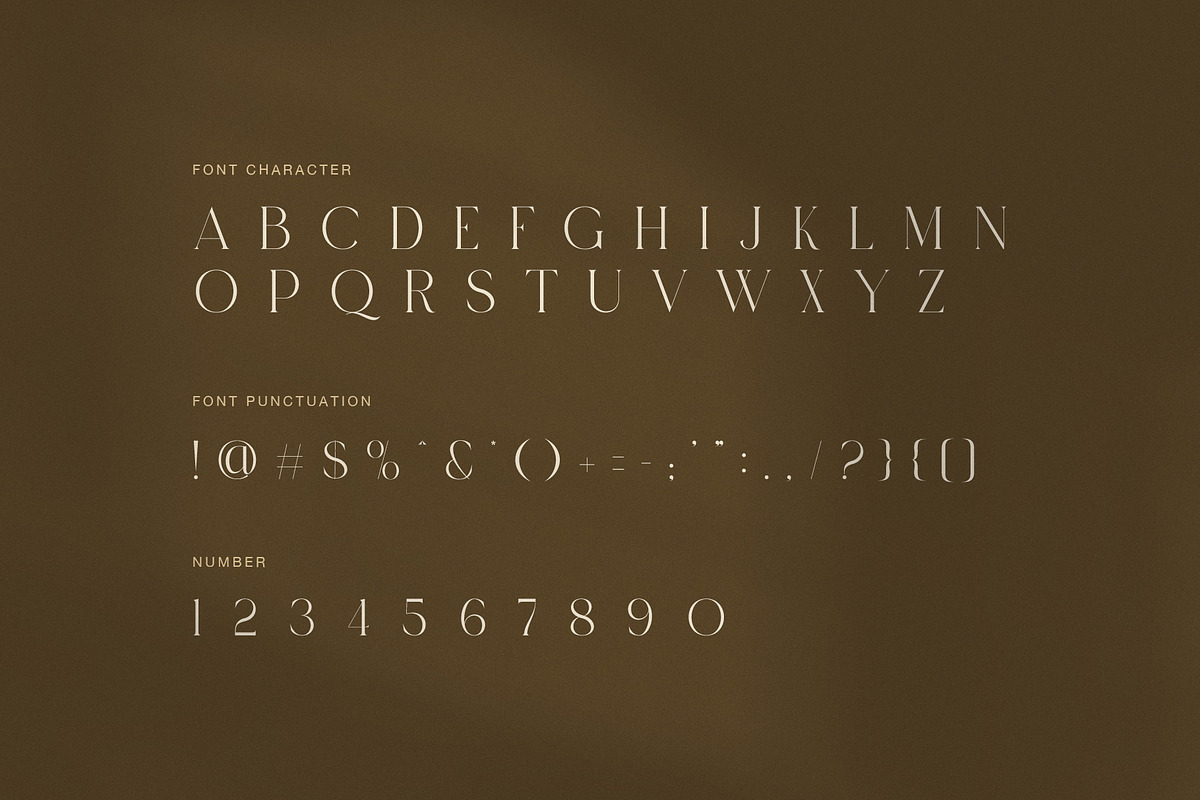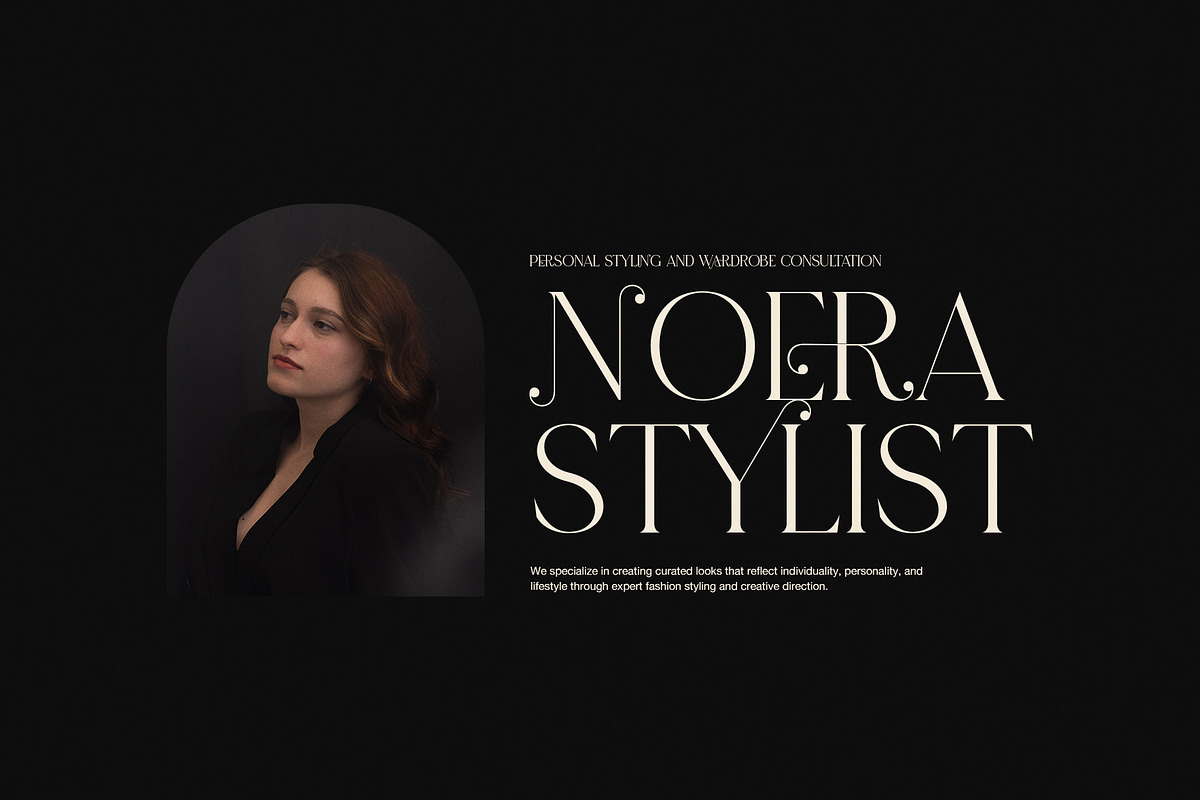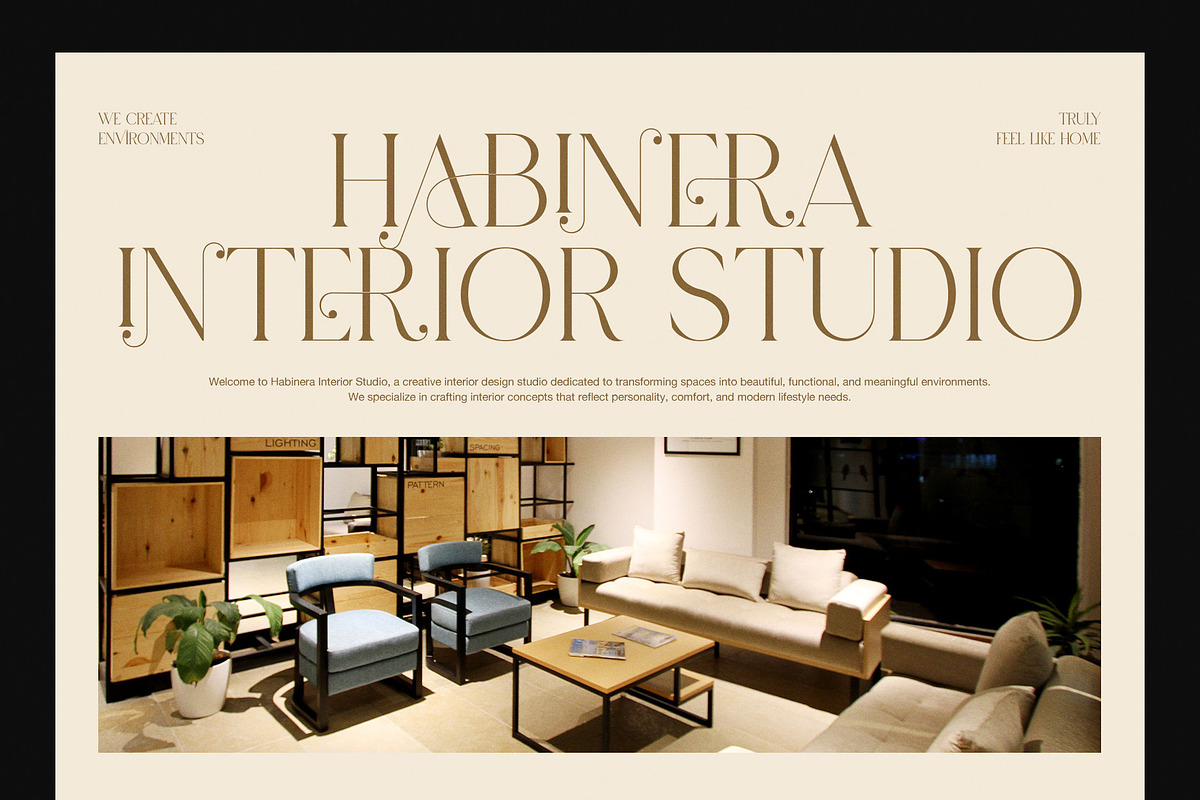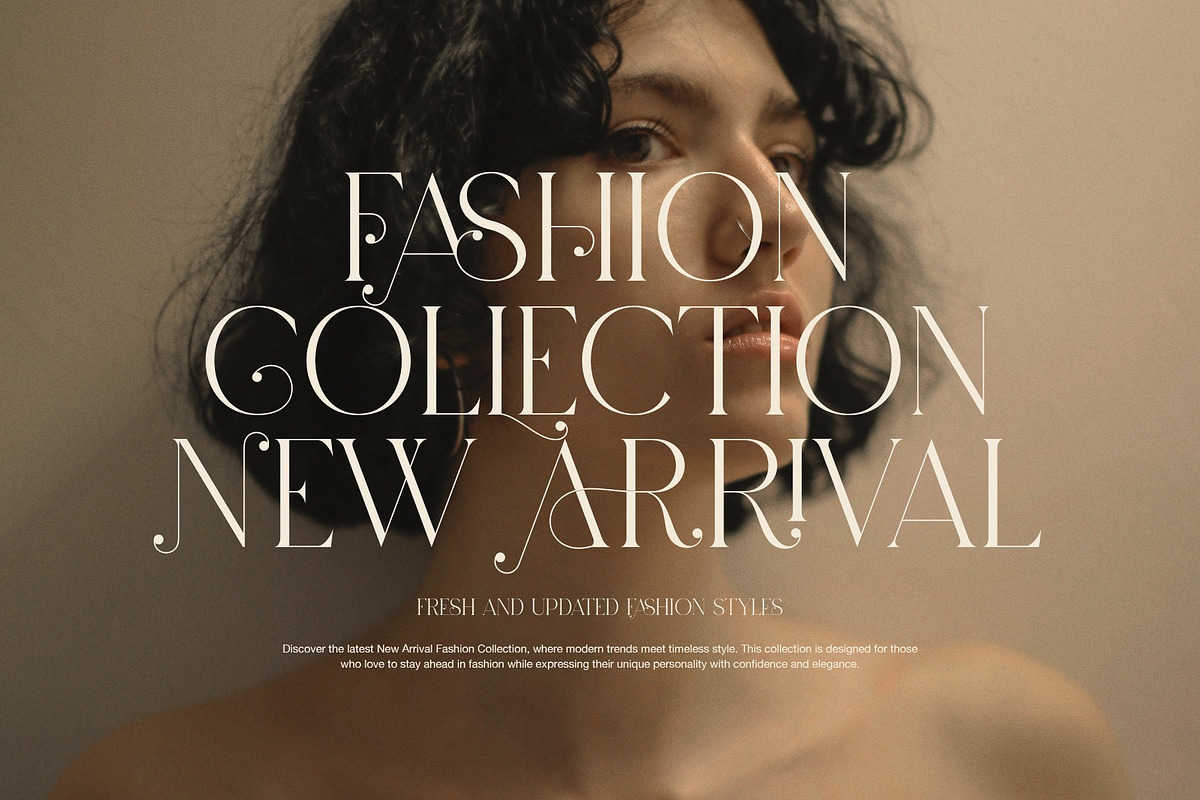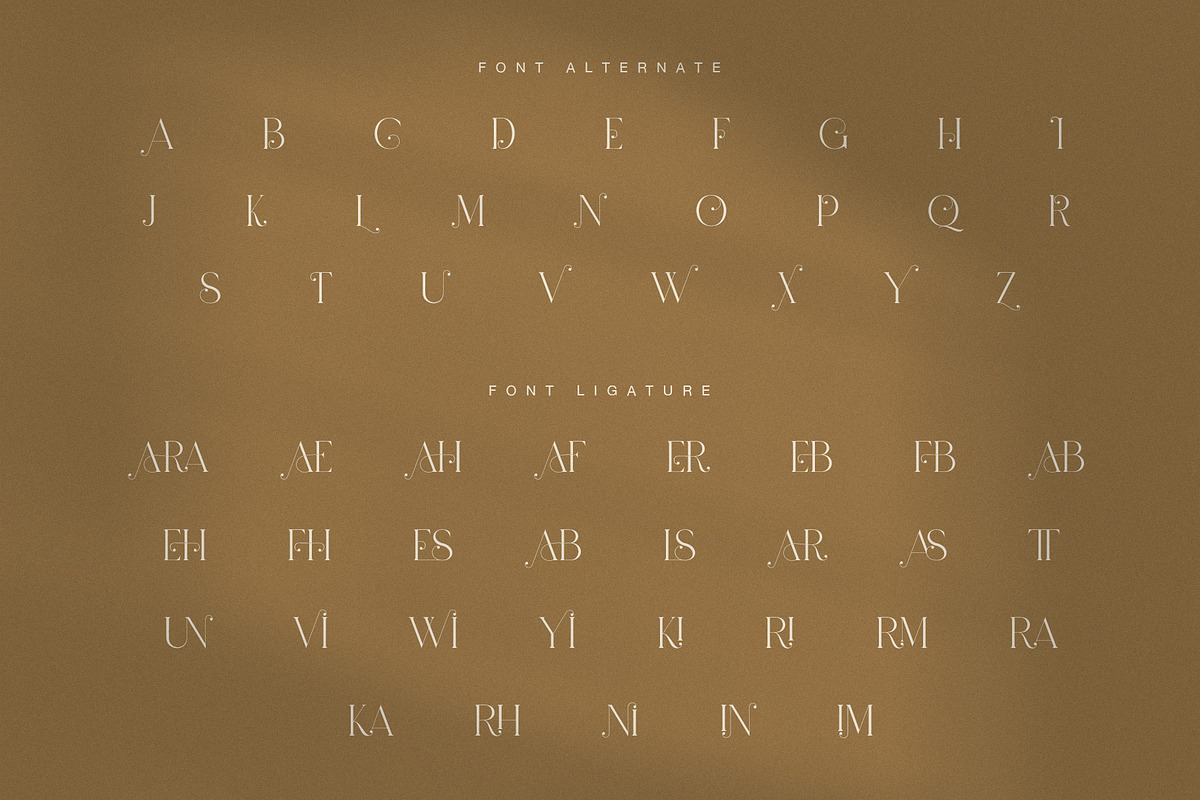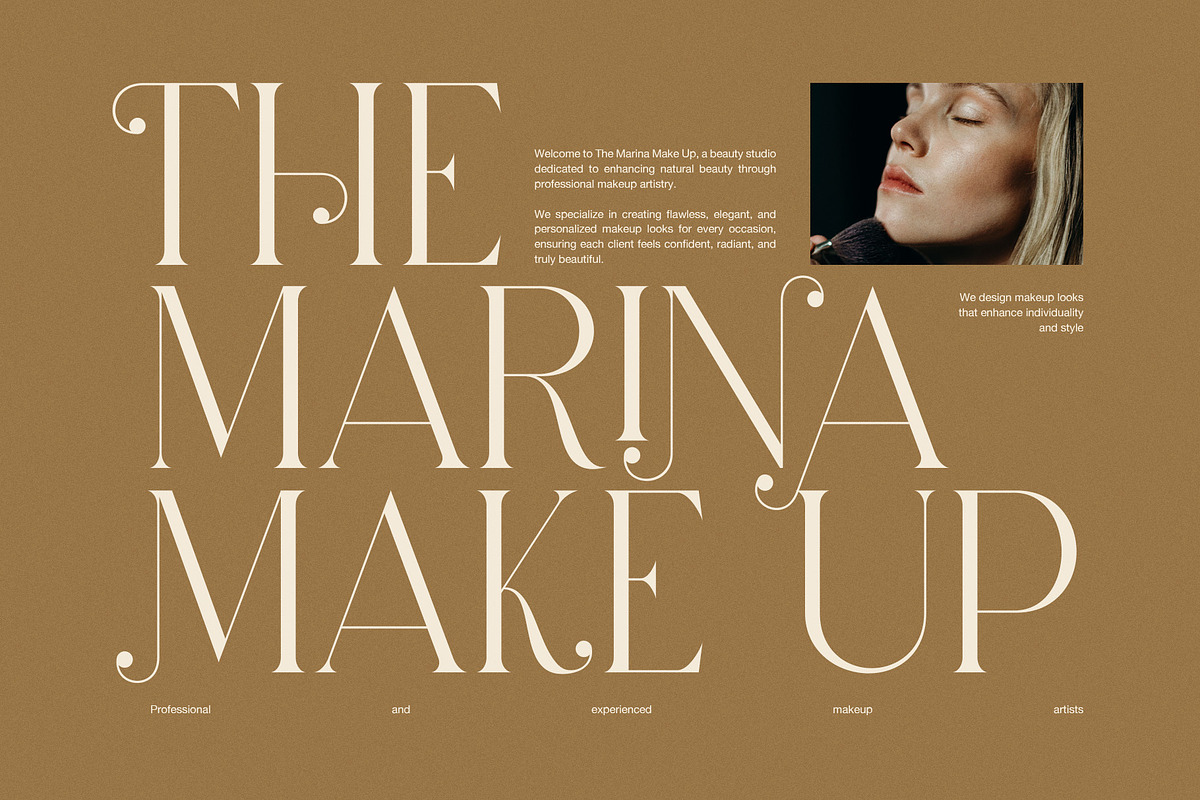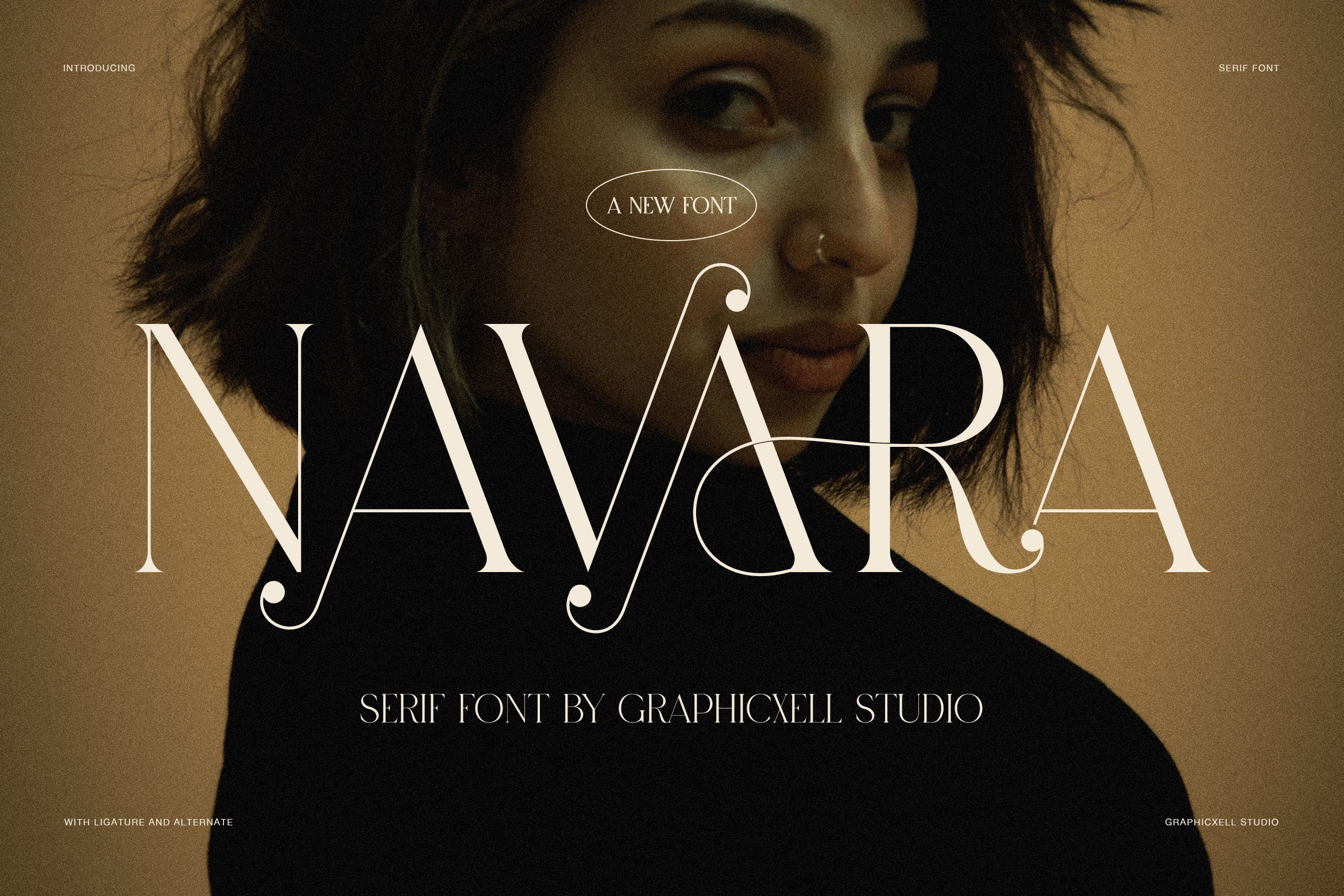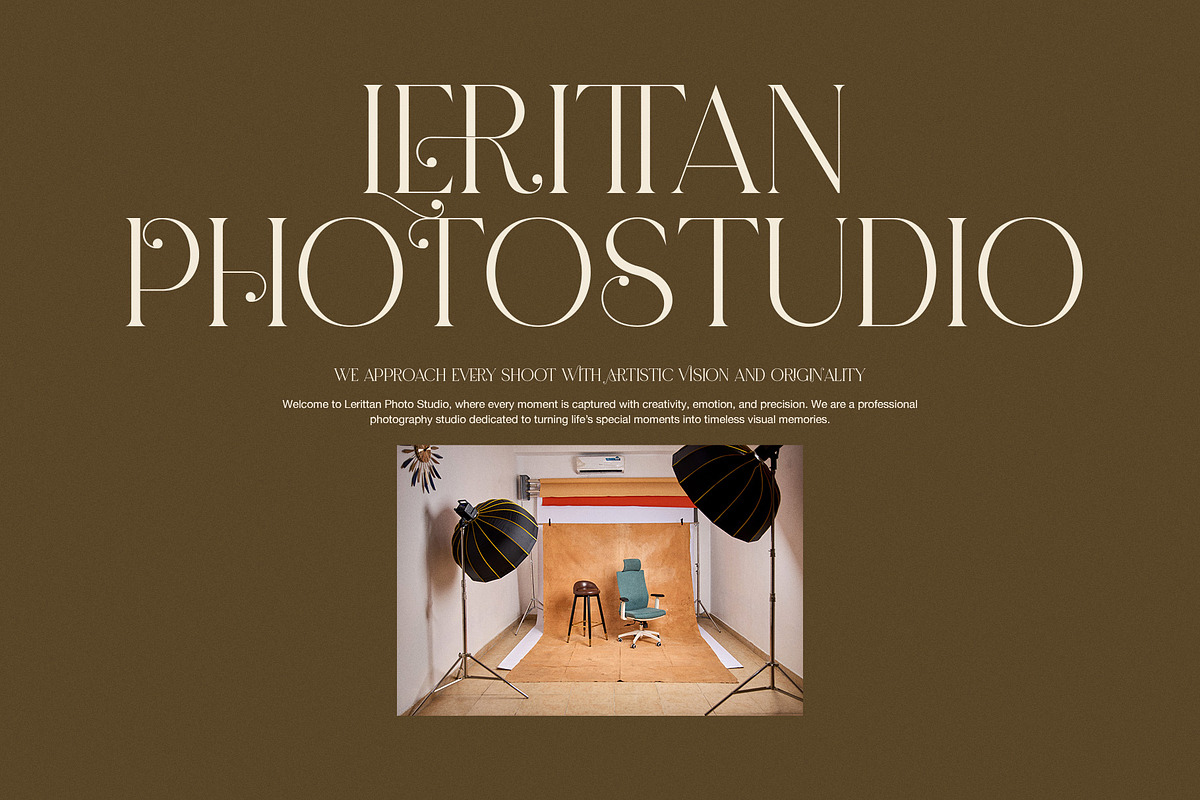
Navara Elegant Ligature Serif Font
Navara Elegant Ligature Serif Font is a refined display typeface created for luxury branding and premium editorial design. It combines elegant serif letterforms with graceful ligatures and stylish alternate characters. As a result, every headline looks sophisticated, artistic, and memorable.
Inspired by high-end fashion, beauty branding, and modern editorials, Navara offers a timeless personality. Its slim proportions and high-contrast strokes create a clean appearance. Meanwhile, decorative terminals add a distinctive touch without reducing readability. Therefore, the font feels both classic and contemporary.
Navara works beautifully for logos, fashion campaigns, cosmetic packaging, jewelry branding, magazines, wedding invitations, restaurants, hotels, photography studios, interior design, and premium marketing materials. Furthermore, it adapts easily to both print and digital projects. Designers can also create unique typography by using the elegant ligatures and alternate glyphs.
Unlike ordinary serif fonts, Navara delivers subtle decorative details that enhance every composition. Even so, the design remains balanced and professional. Consequently, it performs well in minimalist layouts as well as luxurious visual identities. Large titles reveal the fine craftsmanship, while shorter headlines remain clean and readable.
The spacing is carefully refined to create harmony between every letter. In addition, the elegant curves bring rhythm and movement to each word. Therefore, every composition feels polished and visually balanced. Whether you design a luxury logo or an editorial cover, Navara creates a lasting impression.
Main Features
Elegant luxury serif style
Beautiful decorative ligatures
Stylish alternate characters
High-contrast display letterforms
Fashion-inspired typography
Perfect for premium branding
Ideal for logos and editorials
Excellent for packaging design
Suitable for invitations and stationery
Clean spacing and balanced proportions
Perfect for print and digital media
Timeless elegance with modern character
Navara is an excellent choice for designers who value refined typography. It helps every project look elegant and professional. Moreover, it supports many creative industries with ease. From luxury fashion to boutique branding, this serif font adds confidence, beauty, and timeless style to every design.